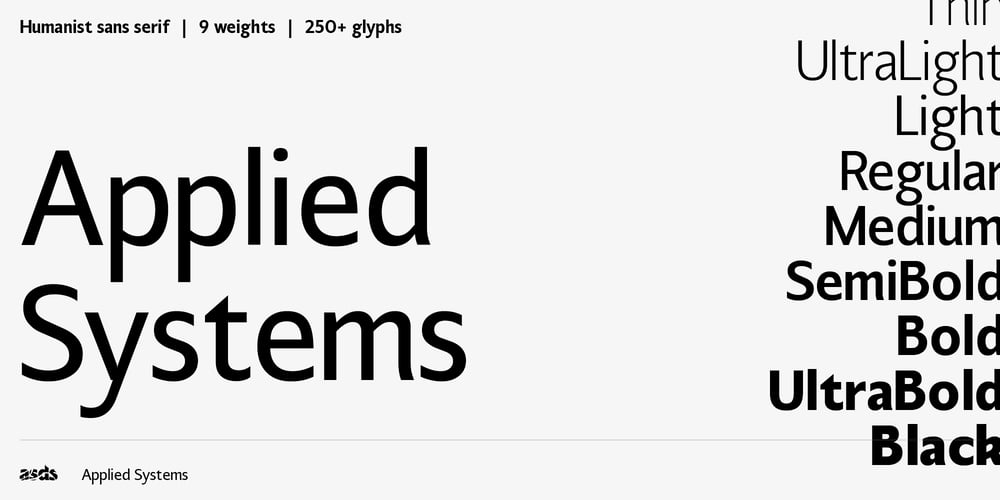
Applied Systems Font Family was designed by Alister Shapley and published by Applied Systems Design Studio. Applied Systems contains 9 styles and family package options. Humanist Sans Serif typeface using modern structural systems. The idea behind this font was to create a formulaic rhythm contrasting with the minor imperfections within a humanist style.